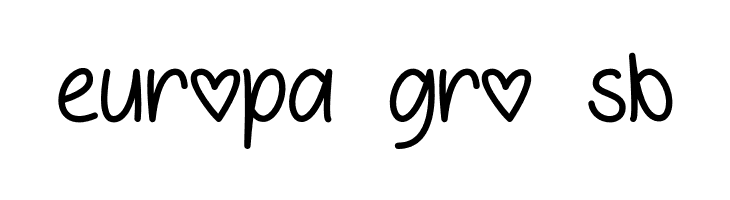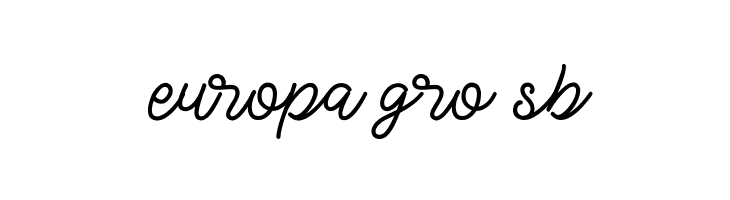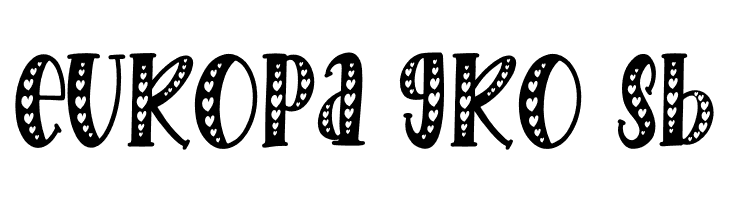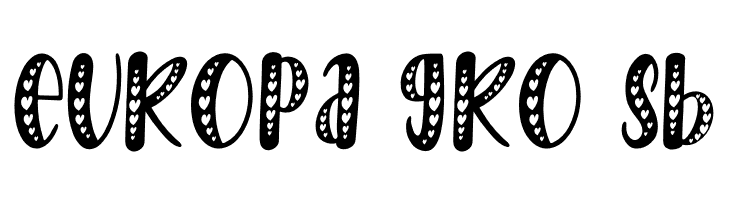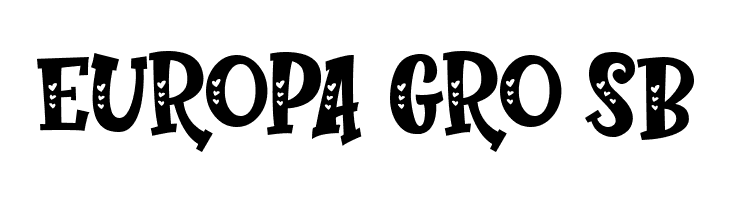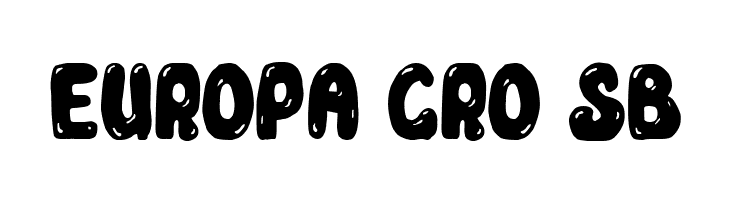
A playful and decorative font with heart motifs and script-like lowercase letters.
A whimsical and decorative script font with heart motifs and flowing cursive style.
A whimsical font with heart motifs in uppercase and elegant cursive lowercase.
A romantic, heart-adorned script font with elegant cursive lowercase letters.
( Fonts by Fikryal studio )
A decorative font with heart-shaped cutouts, perfect for romantic and playful designs.
( Fonts by Fikryal studio )
A playful, heart-filled decorative font with a whimsical and romantic style.
( Fonts by Fikryal studio )
A playful, heart-filled decorative font with bold, rounded letters.
( Fonts by Figuree Studio )
A bold, decorative font with heart-shaped cutouts and playful, dynamic characters.
A playful, balloon-inspired font with rounded, bold characters.